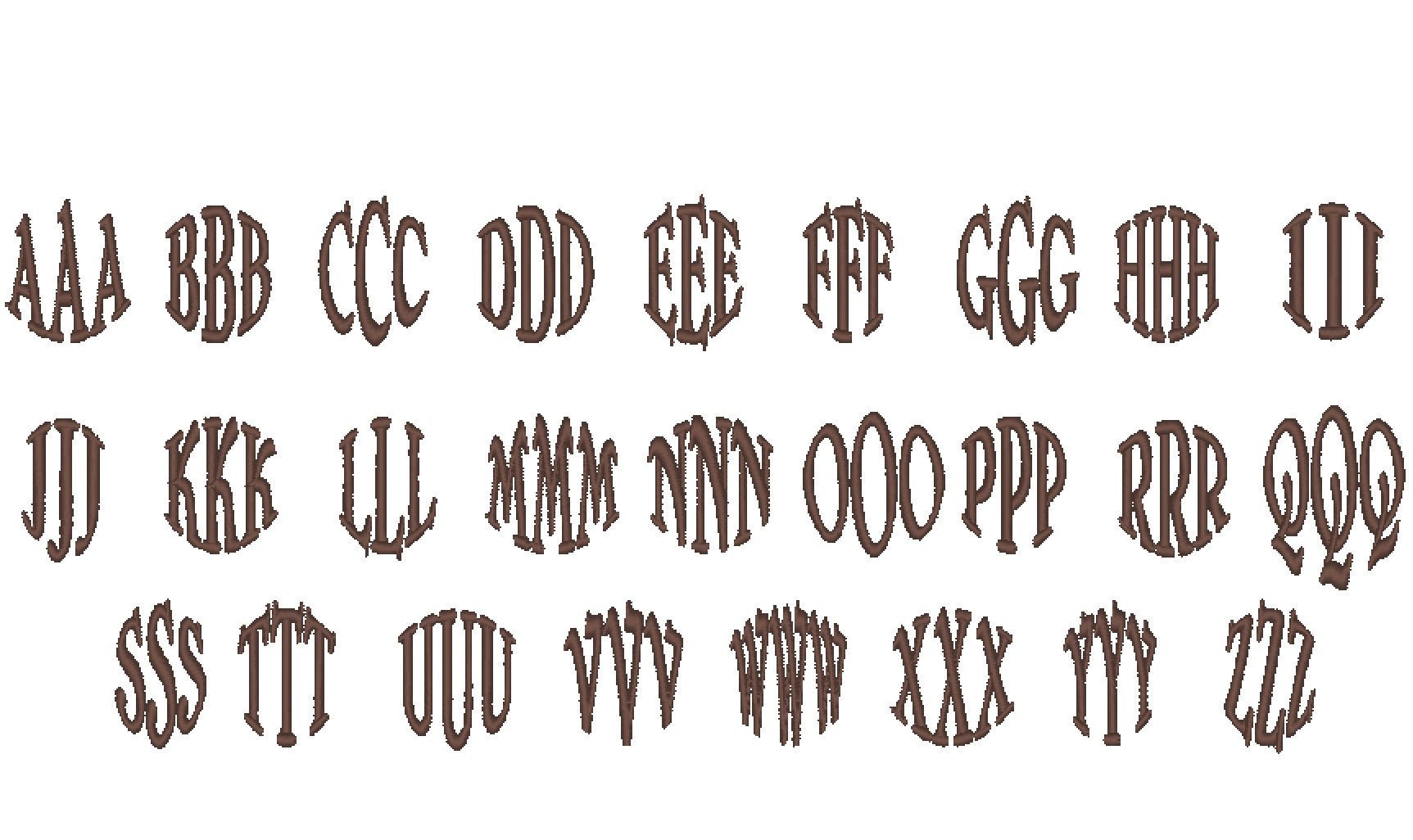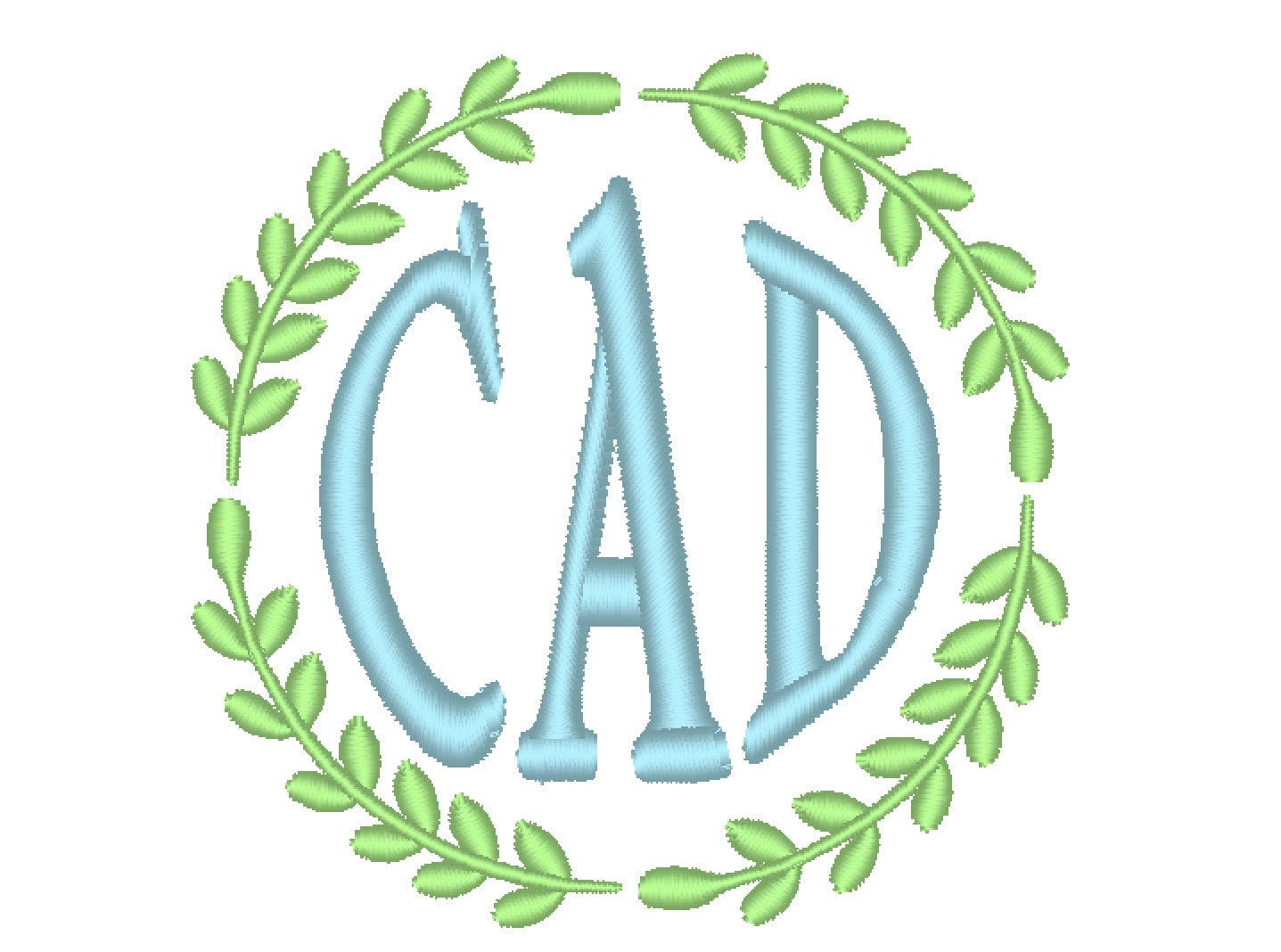
Make gorgeous three letter circle monograms quickly and easily!
CIRCLE MONOGRAM is a trendy monogram set.
This set includes 78 uppercase letters to complete 3 letter monogram in a satin stitch.
Also, included laurel leaves circle